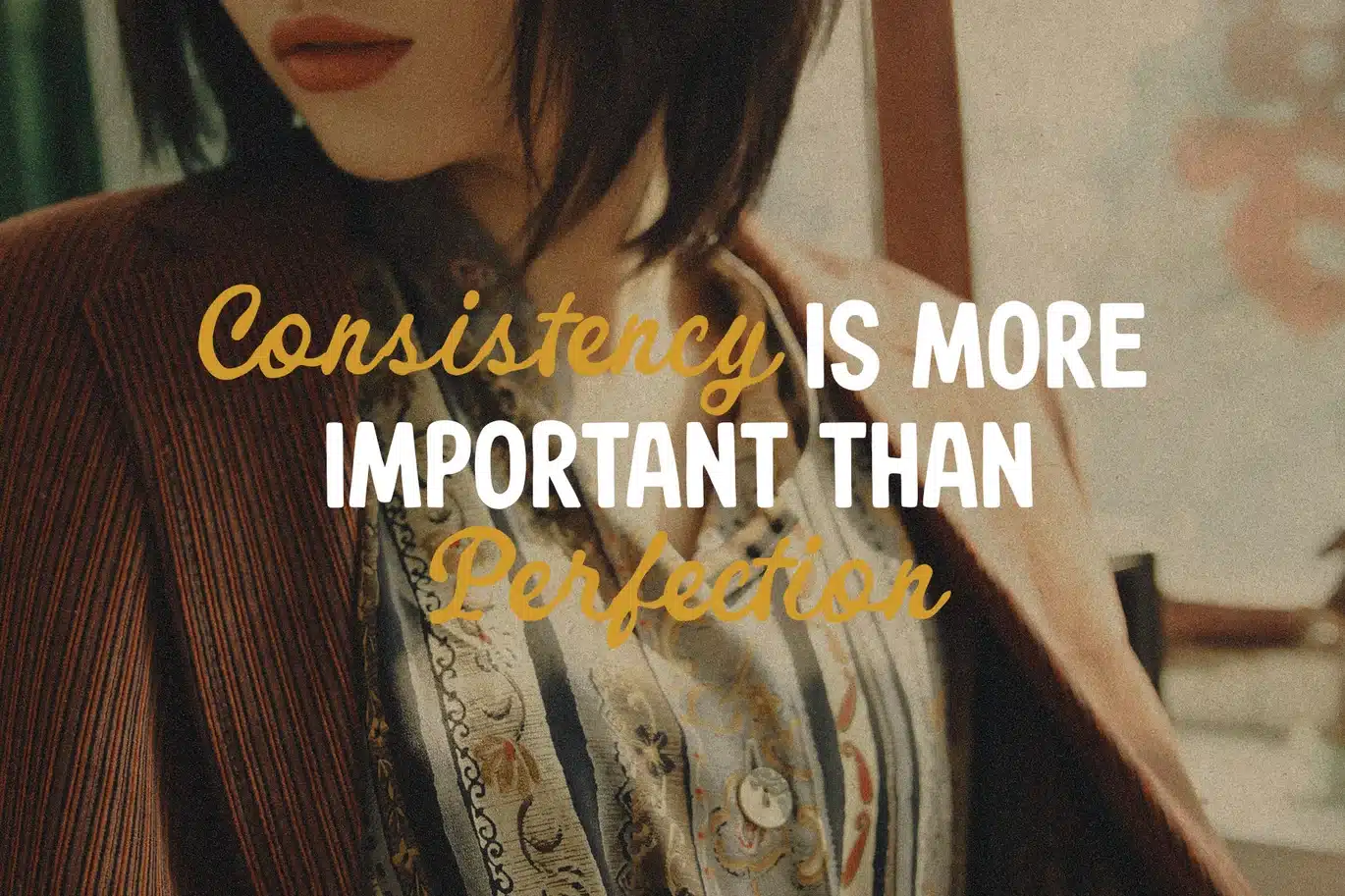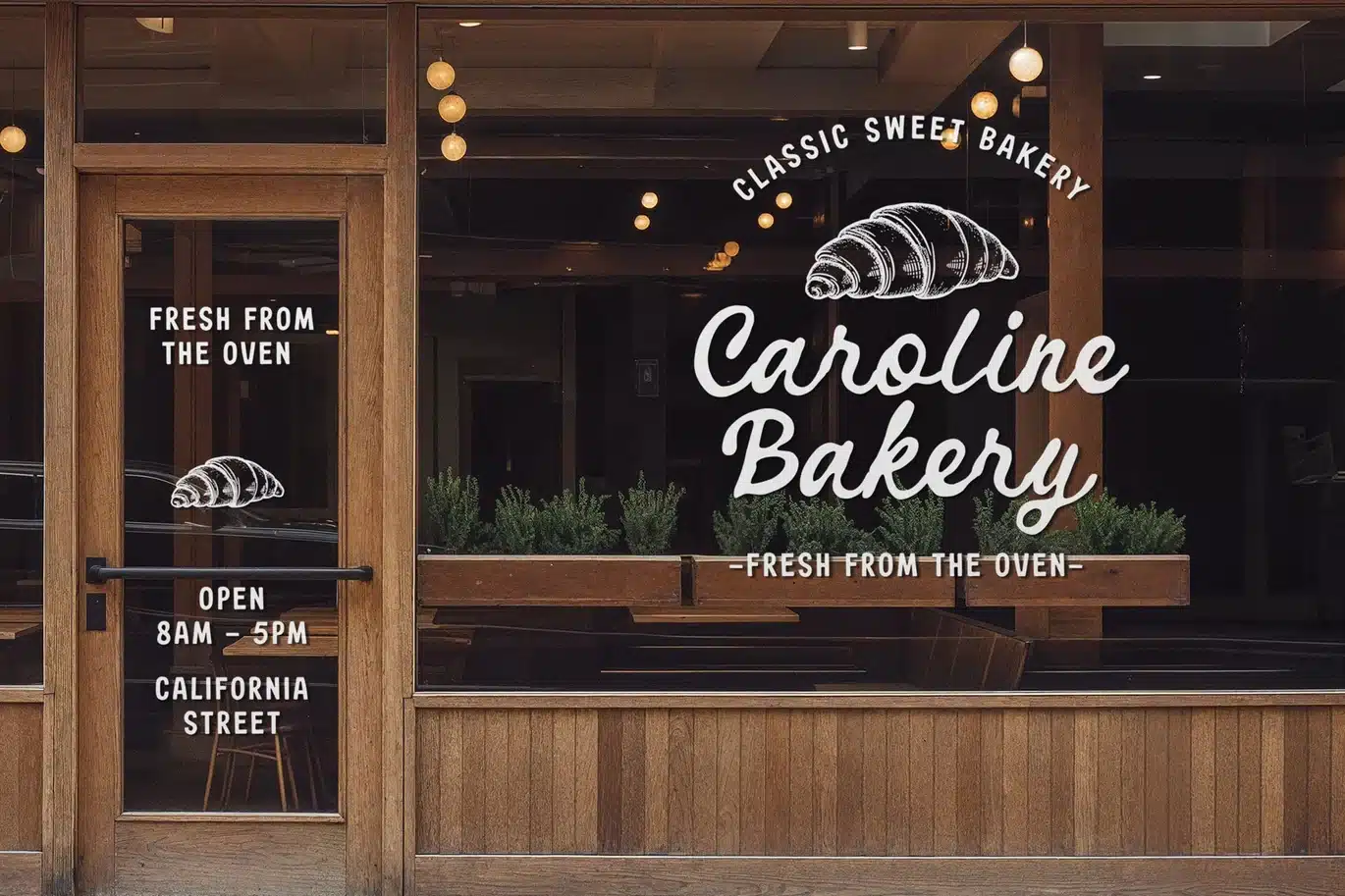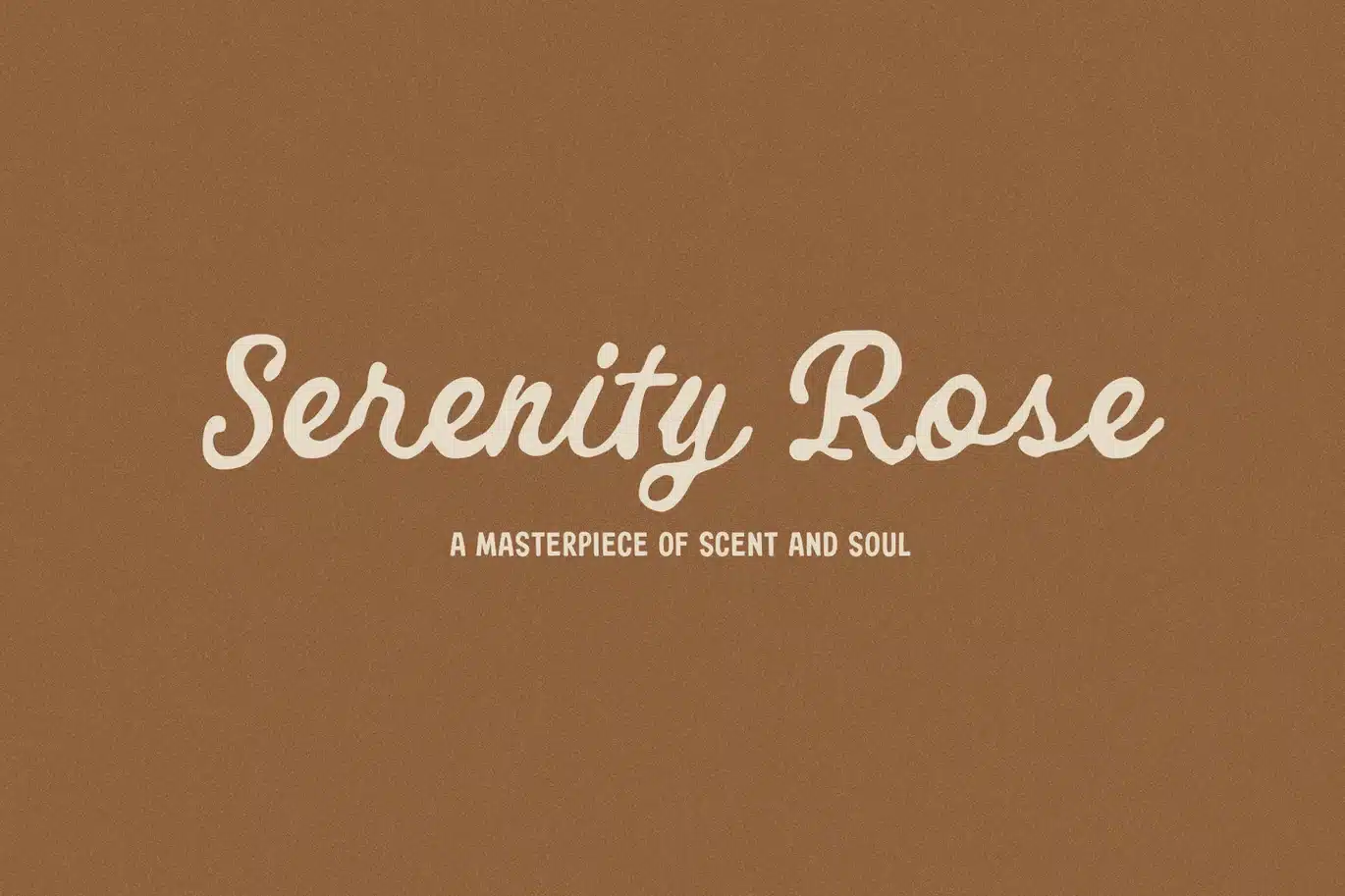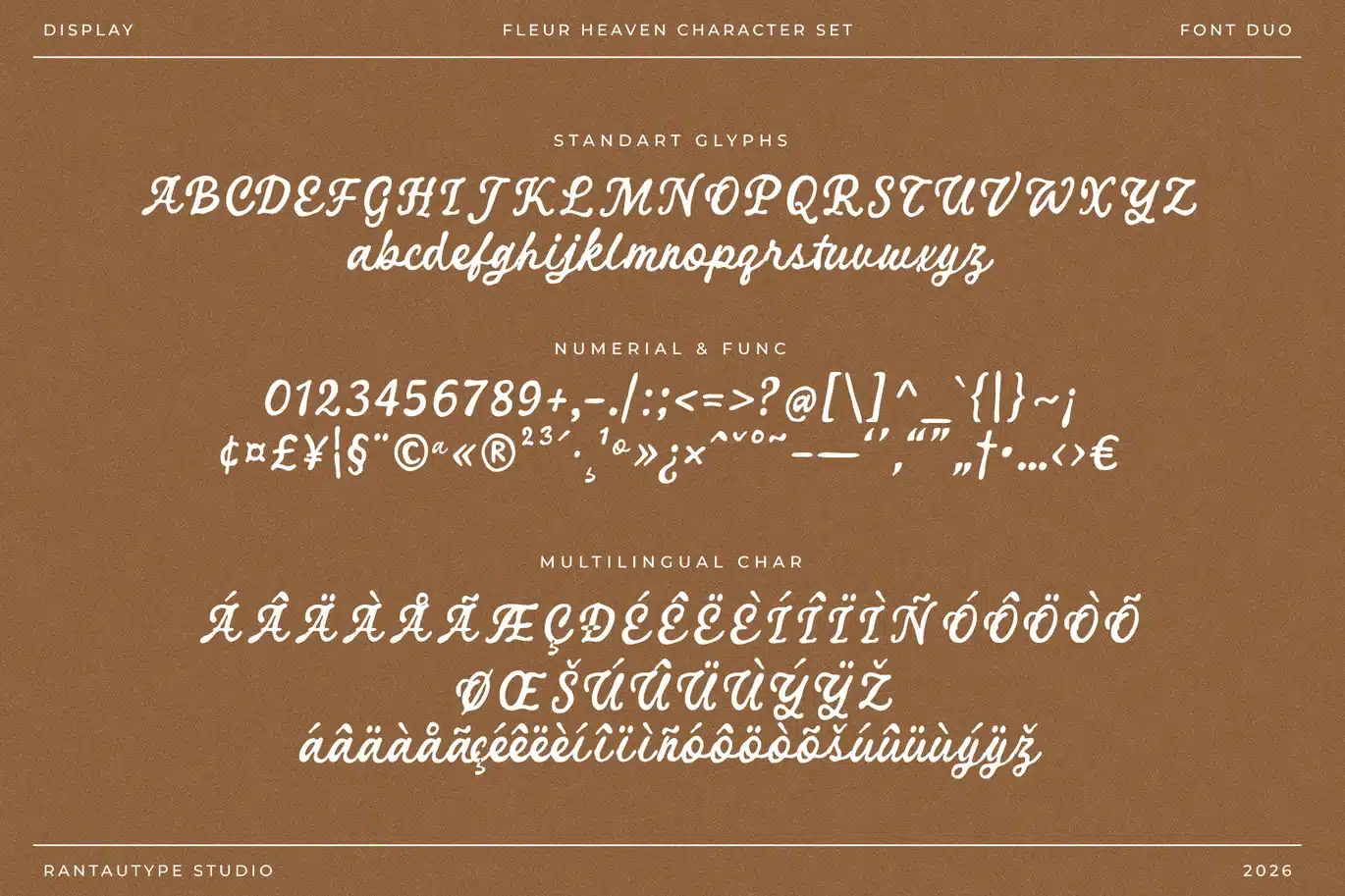
Fleur Heaven a Font Duo
Fleur Heaven is blends sans serif and expressive script with retro display style creates a powerful visual identity that feels both timeless and full of personality. This combination is designed for brands that want to stand out with confidence while maintaining a sense of elegance and readability.
Fleur Heaven is a perfectly choice for any creative endeavor, creating, modern, lifestyle design such as logotype, title, cover, branding, invitations, wedding designs, display and magazine, social media posts, advertisements, printed quotes, product packaging, corporate brand, product designs, labels, photography, watermarks, special events and any other project with fresh touch.